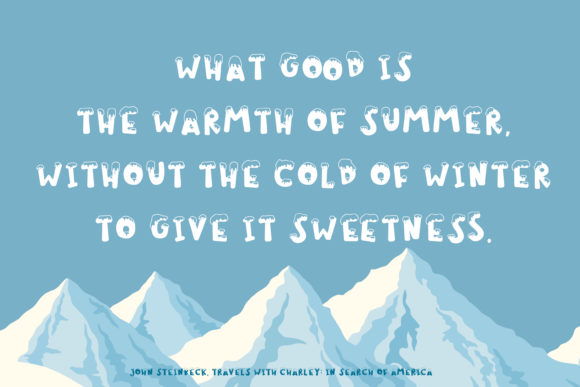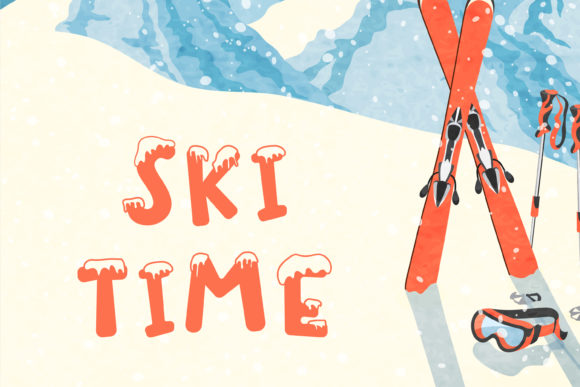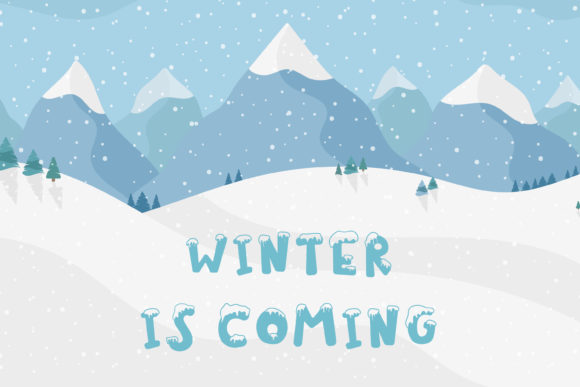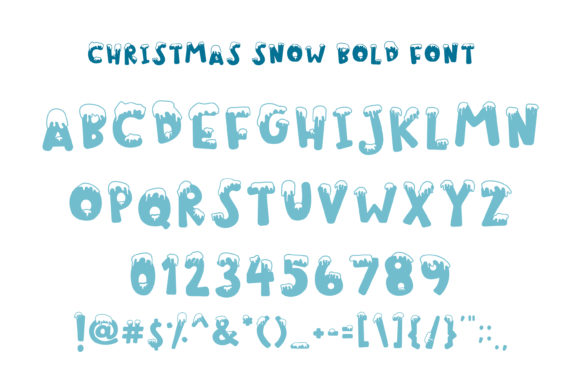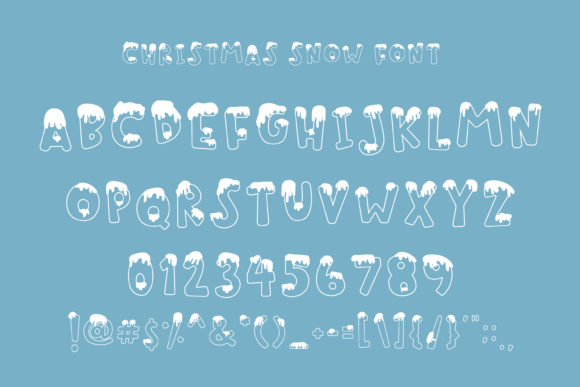
Introduction to Christmas Snow Font
Christmas Snow is a bold and playful decorative font with a winter theme.
It will add an incredibly joyful touch to your designs Add this beautiful Headline font to each of your creative ideas and notice how it makes them stand out.
Key Features of Christmas Snow Font
Why Choose Christmas Snow Font?